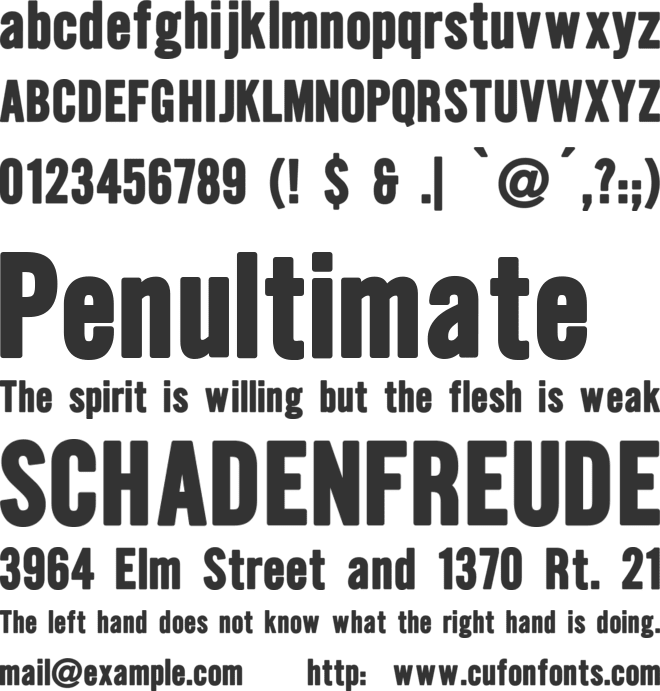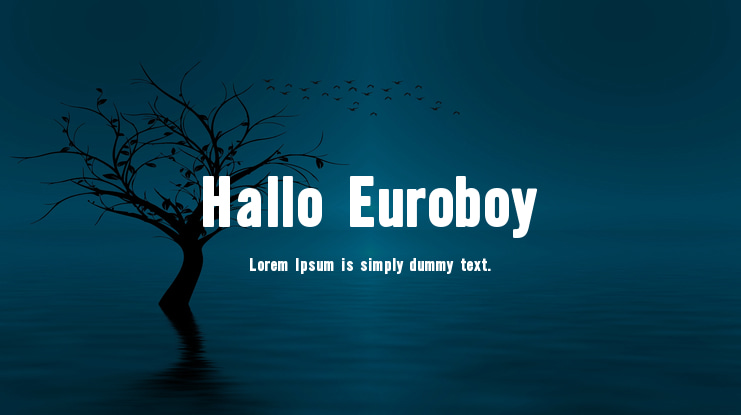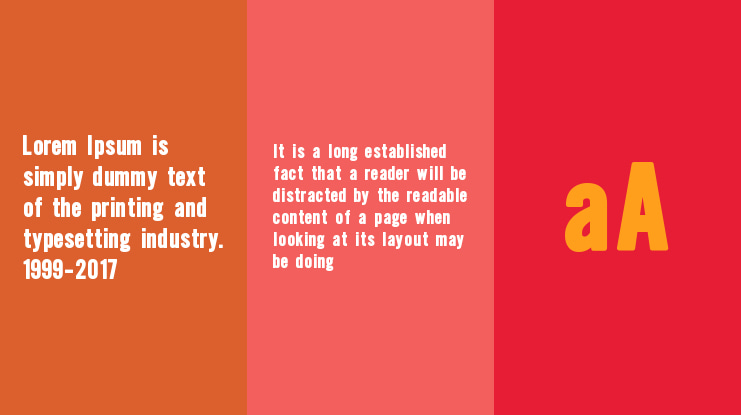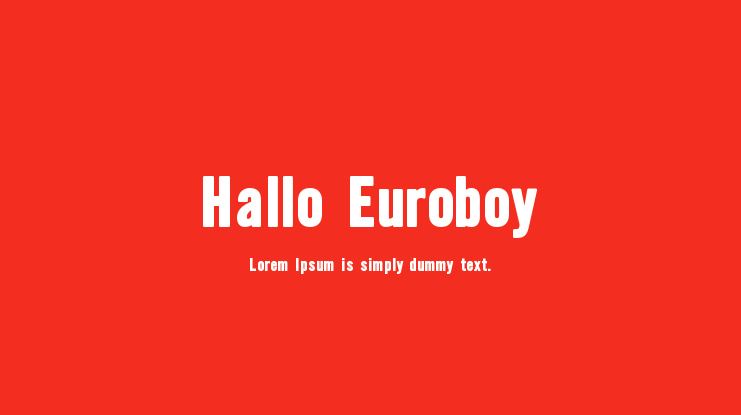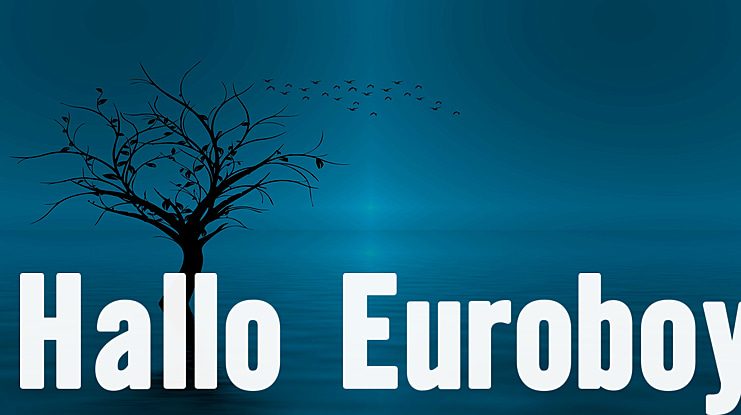
Hallo Euroboy Font
"Hallo Euroboy" is a boldish but slightly softish gothic typeface which is suitable for headlines on posters or warning signs at construction sites. Inspired by Morris Fuller Bentons sadly overlooked "Alternate Gothic" (the original that came long before "Trade Gothic")